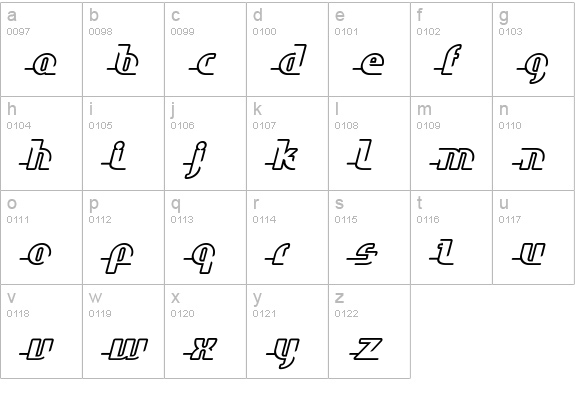
FastGirls-WiredForSpeed Font Details
Introducing FastGirls-WiredForSpeed font, a dynamic and energetic typeface designed for those who are always on the move. This font exudes a sense of speed and agility, making it perfect for projects that require a sense of urgency and action. With its sharp lines and sleek design, FastGirls-WiredForSpeed font is sure to make a bold statement in any design project. What's even better is that FastGirls-WiredForSpeed font is completely free to download at FontsMarket.com. Yes, you read that right - this powerful font can be yours at no cost, allowing you to add a touch of speed and excitement to your designs without breaking the bank. Don't miss out on this opportunity to elevate your projects with the FastGirls-WiredForSpeed font - download it now and unleash its power today!